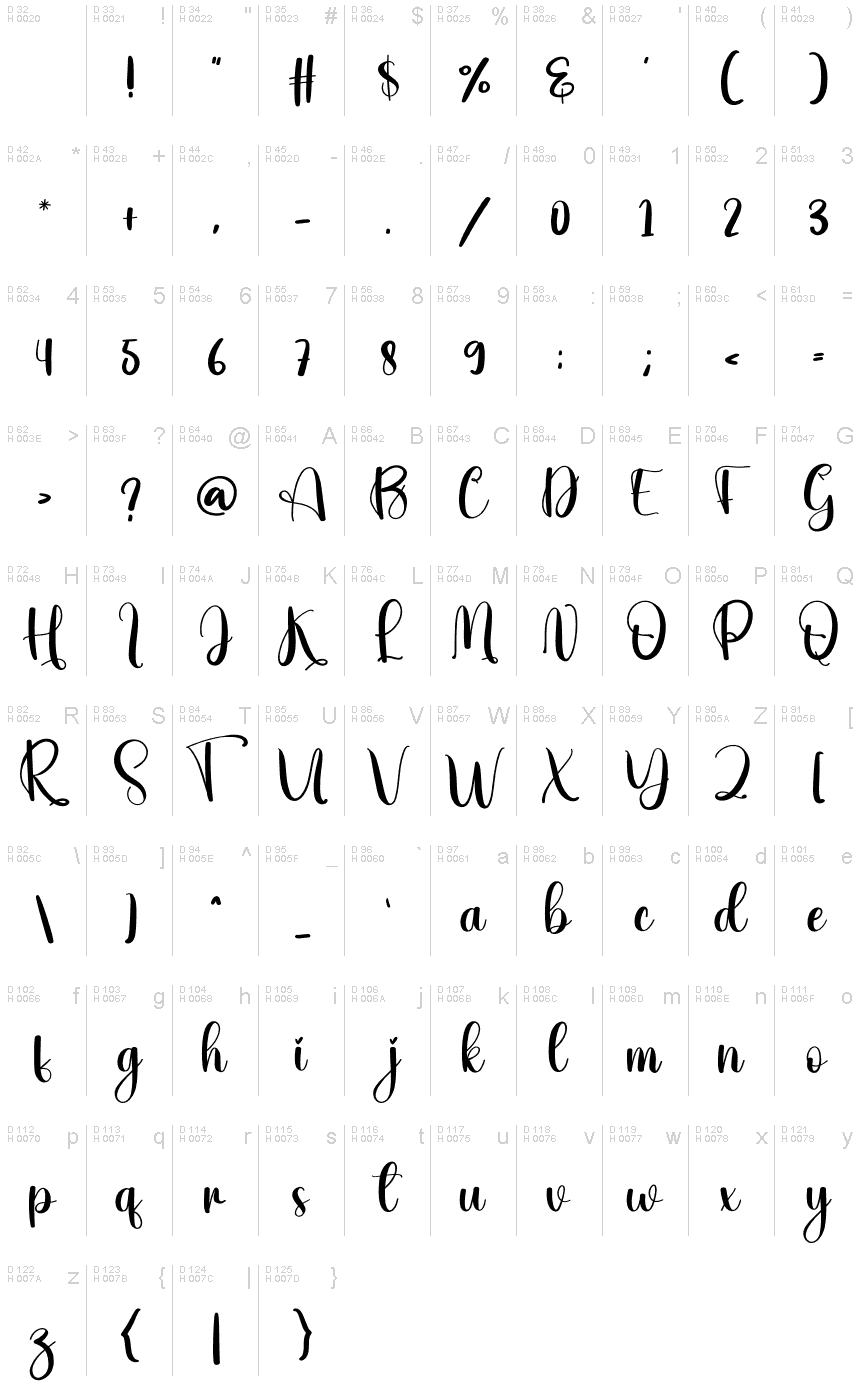
Army
Army, designed by Scratchones, is a calligraphy font that embodies a semi-light weight, merging the precision of stately letterforms with the fluidity of freehand script. With its elegant sweeps and fine strokes, this typeface captures the essence of traditional calligraphy while maintaining a clean and modern edge. The font's aesthetic appeal lies in its balance between meticulous craftsmanship and artistic spontaneity, making it a standout choice for design projects that require a touch of sophistication.
The Army font's distinctive style lends itself to an array of creative endeavors—from branding to editorial design. Its semi-light weight ensures legibility while providing an air of refinement, perfect for invitations, logos, or any project where a personal and high-end feel is desired. The harmonious flow and understated elegance encapsulated in Army's curves position it as an ideal candidate for those seeking to infuse their work with both classic charm and contemporary finesse.